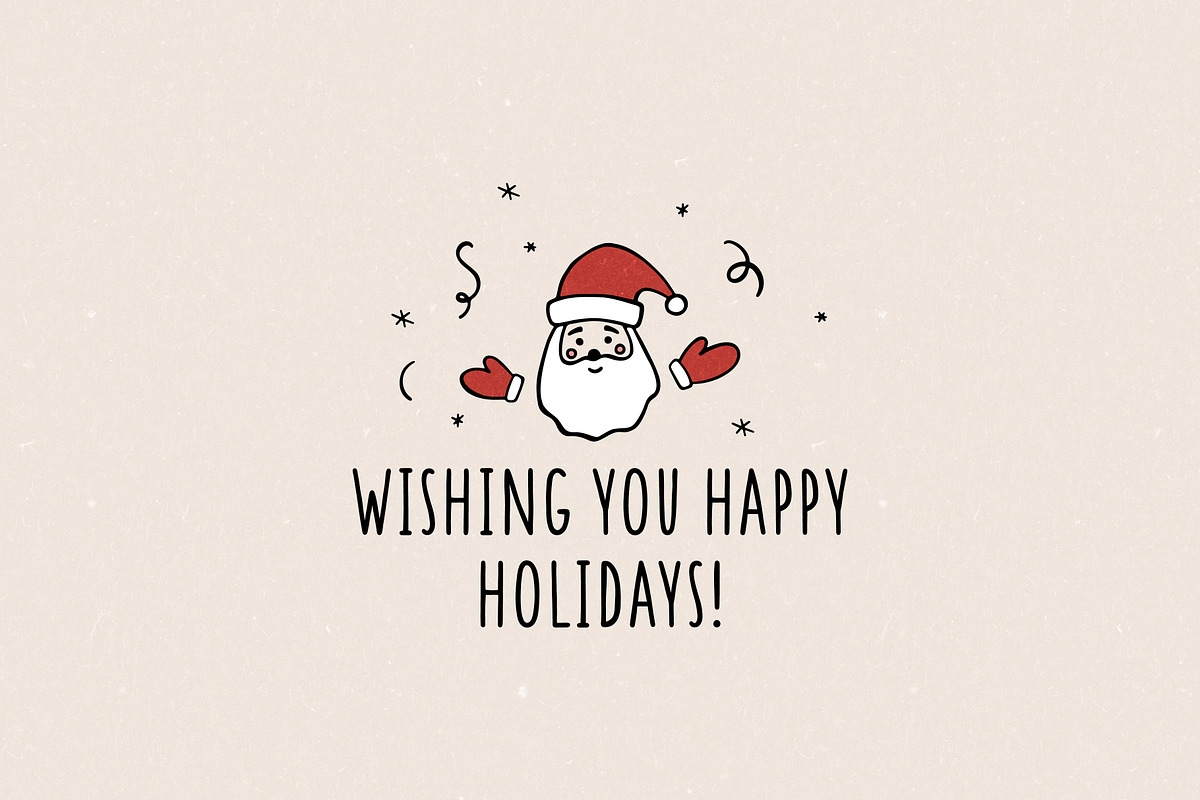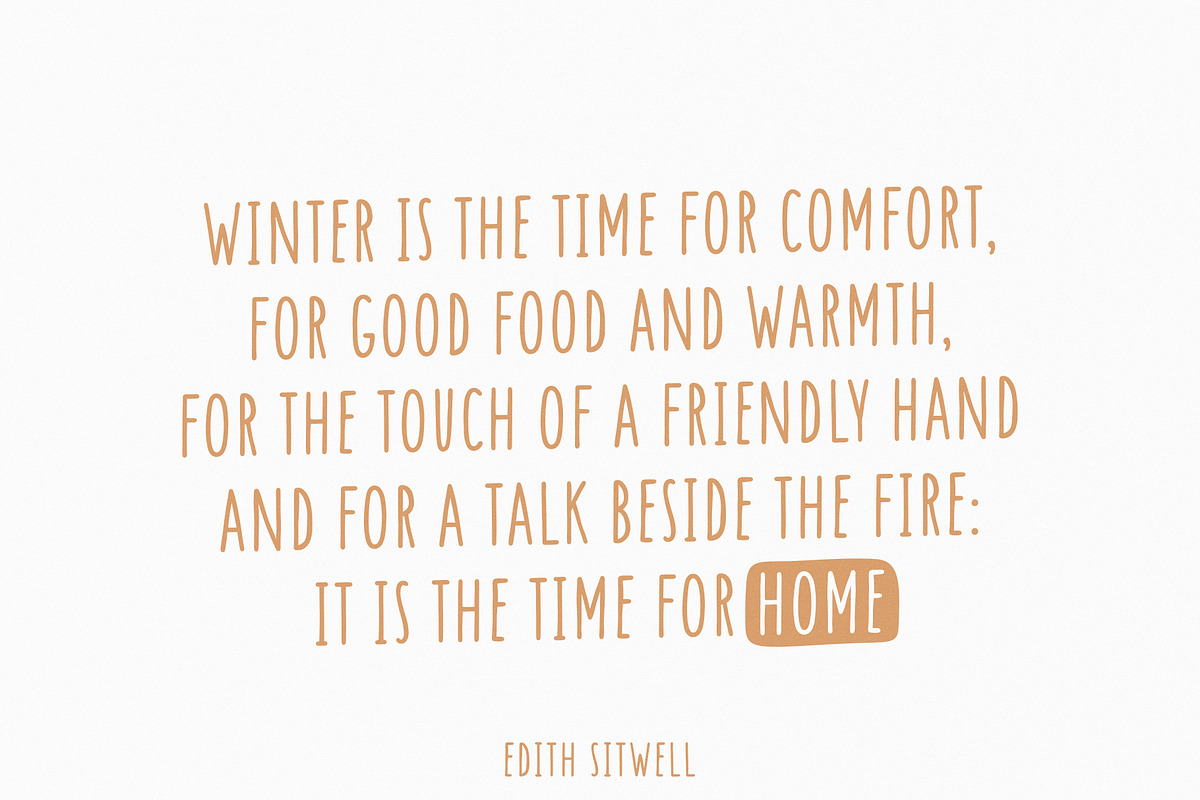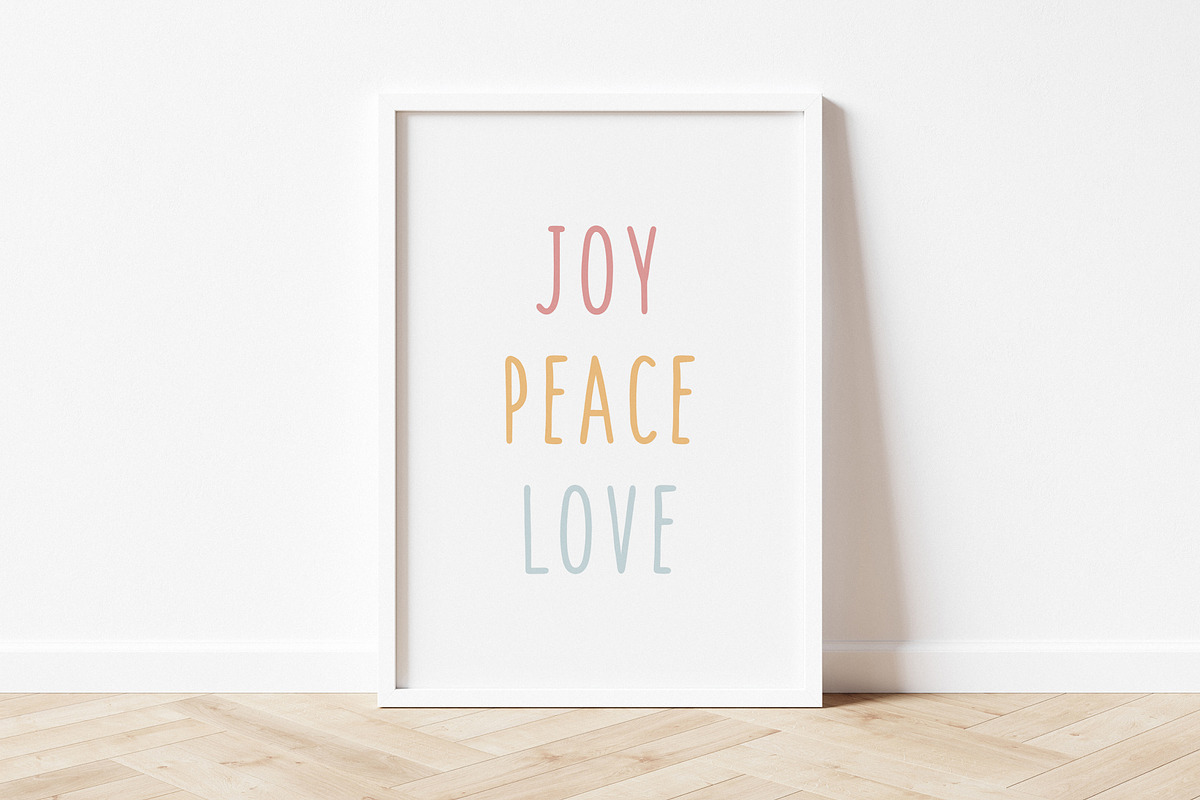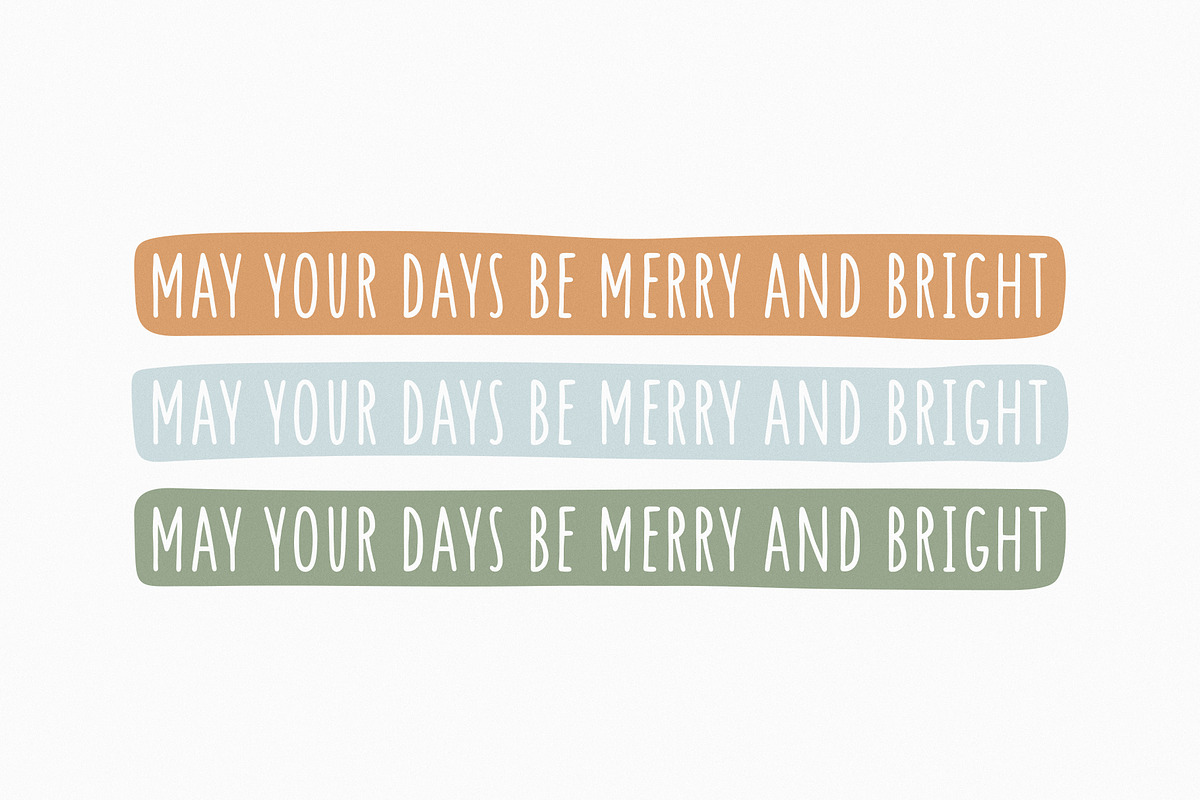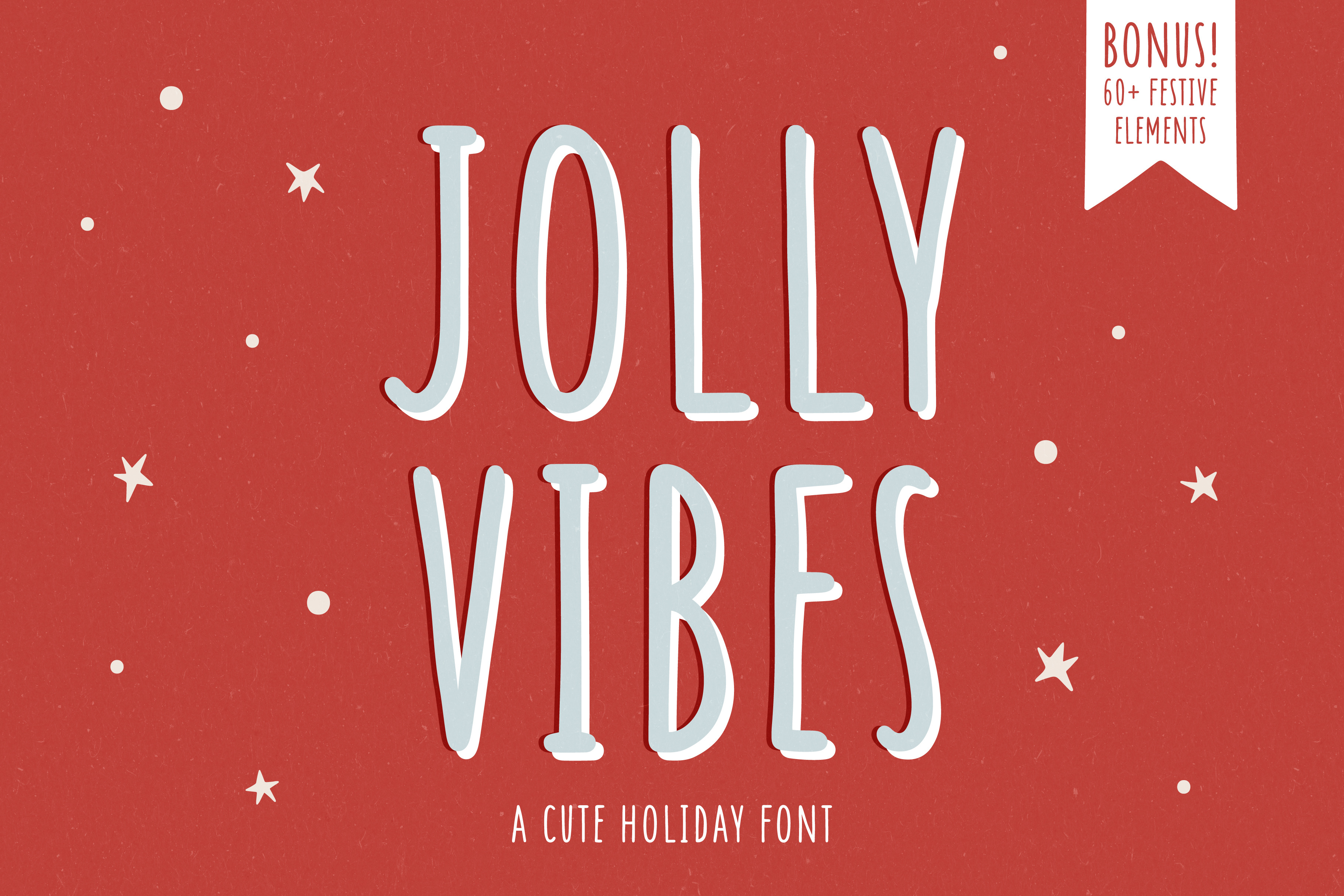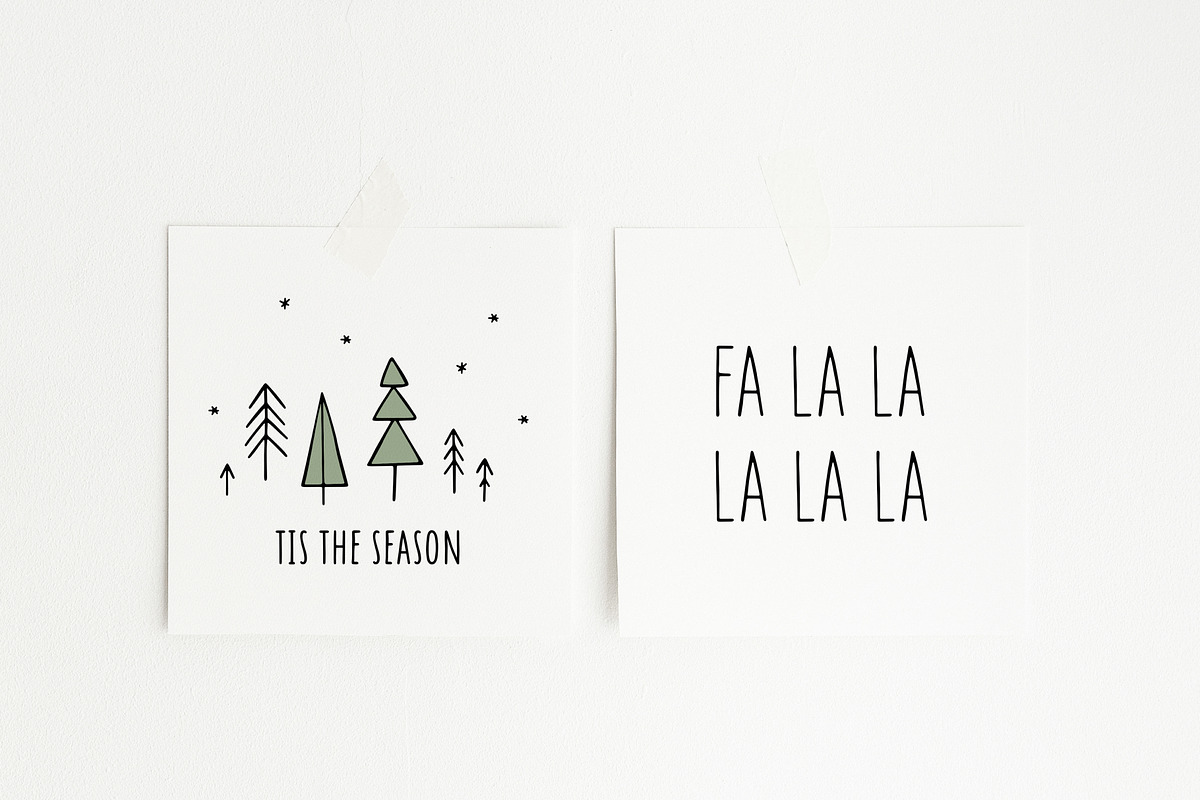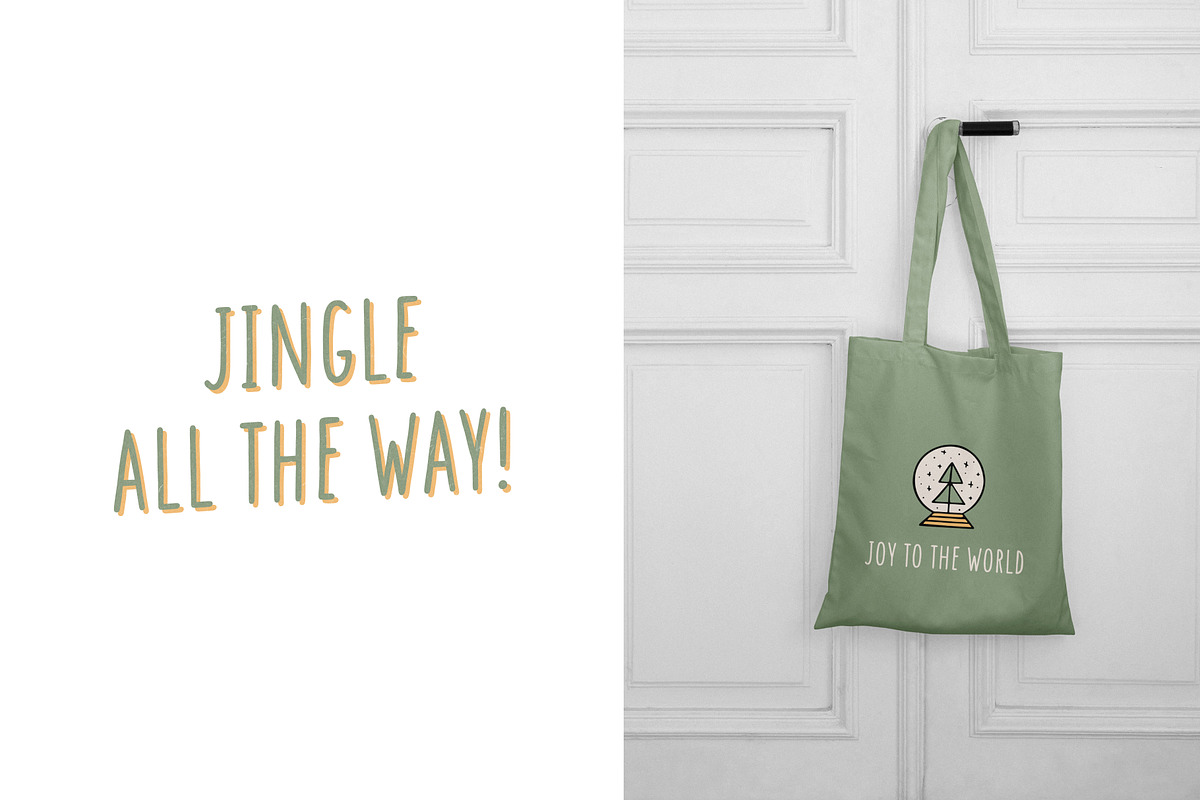
Jolly Vibes - Holiday Font
Jolly Vibes - a cute holiday font with festive graphic elements. Perfect for Christmas designs, logos, branding, packaging, apparel, cards, posters, quotes, social media posts, stickers and more!